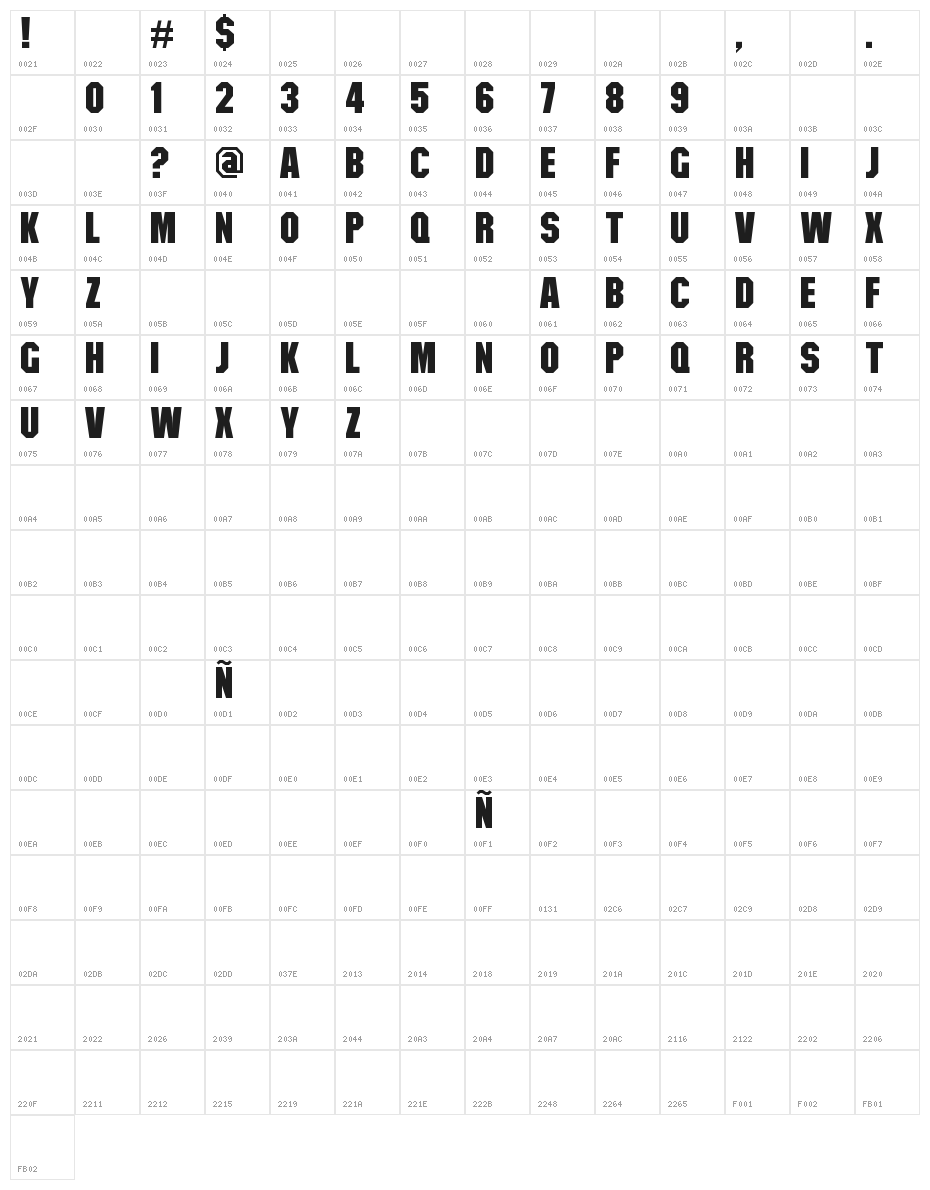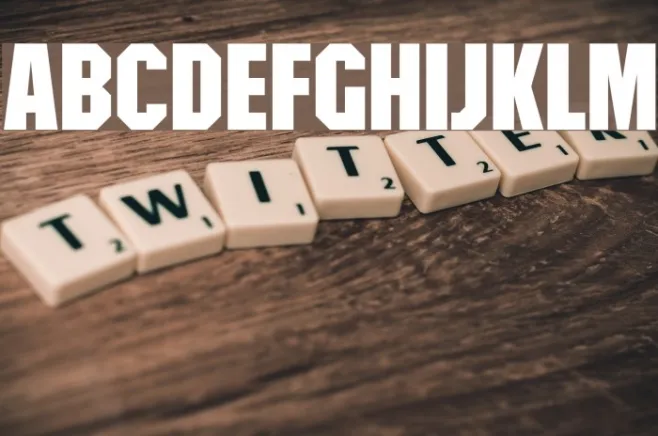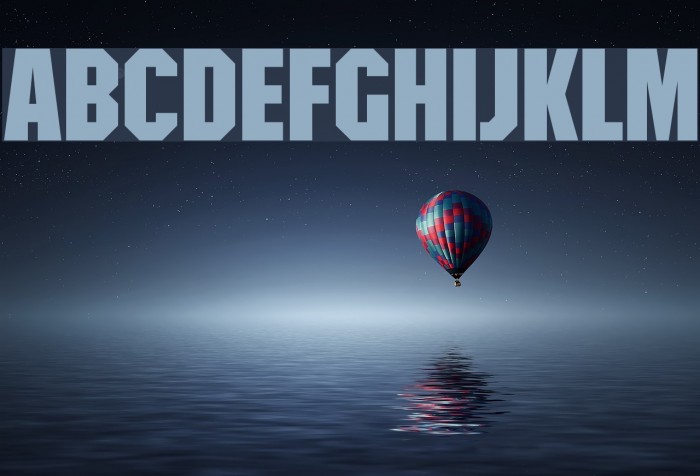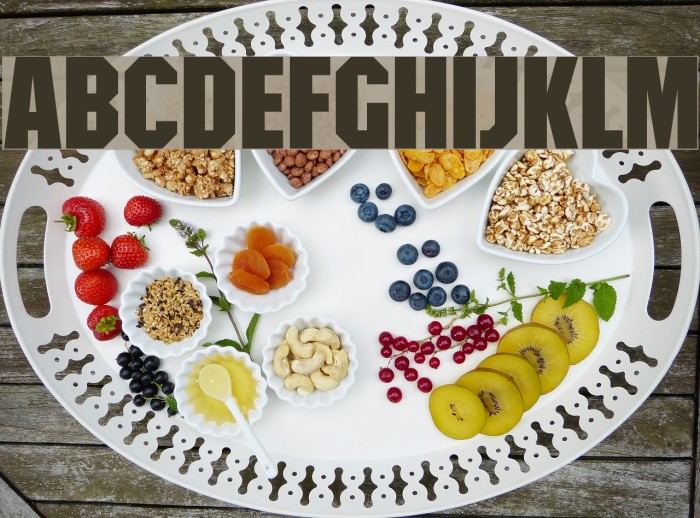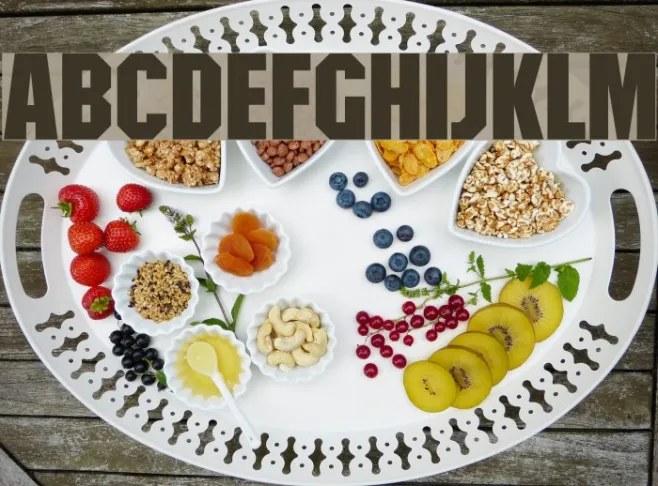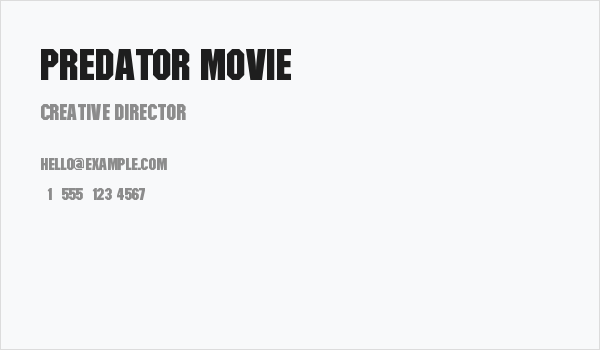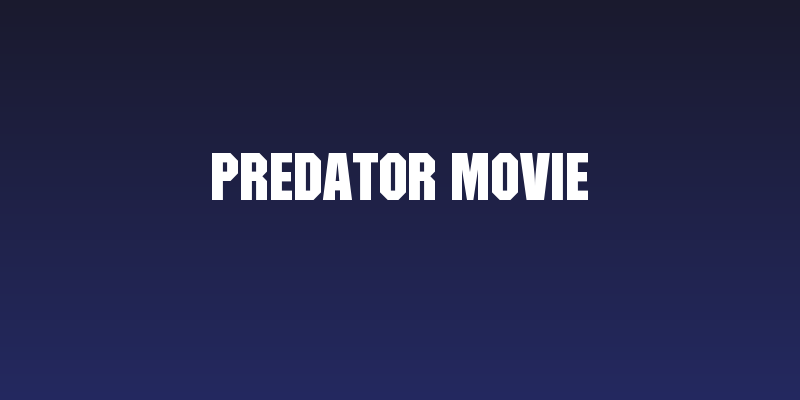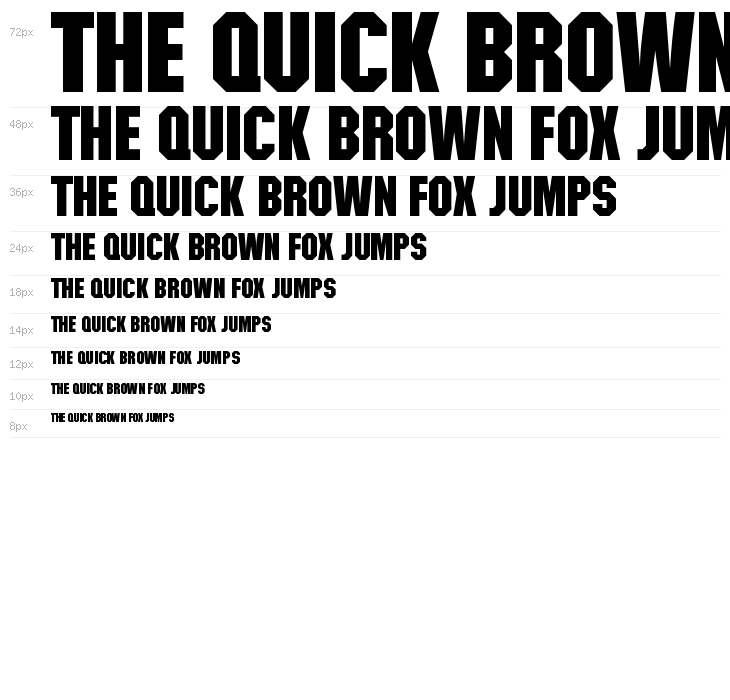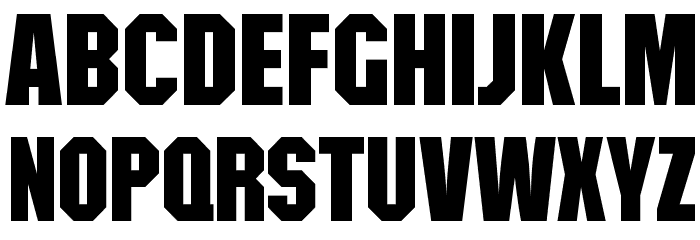
Predator Movie Font
Predator Movie Description
This font features bold, geometric letterforms with a strong, impactful presence. The characters are designed with sharp angles and a uniform stroke width, giving them a modern and assertive appearance. The uppercase letters are particularly striking, with a blocky, robust style that commands attention. The numerals and special characters maintain the same boldness and geometric precision, ensuring consistency across all glyphs. This font is ideal for projects that require a strong visual impact and a contemporary feel.
| Proposed Projects | Ideal for movie posters, video game titles, sports branding, and any project requiring a bold, impactful typeface. |